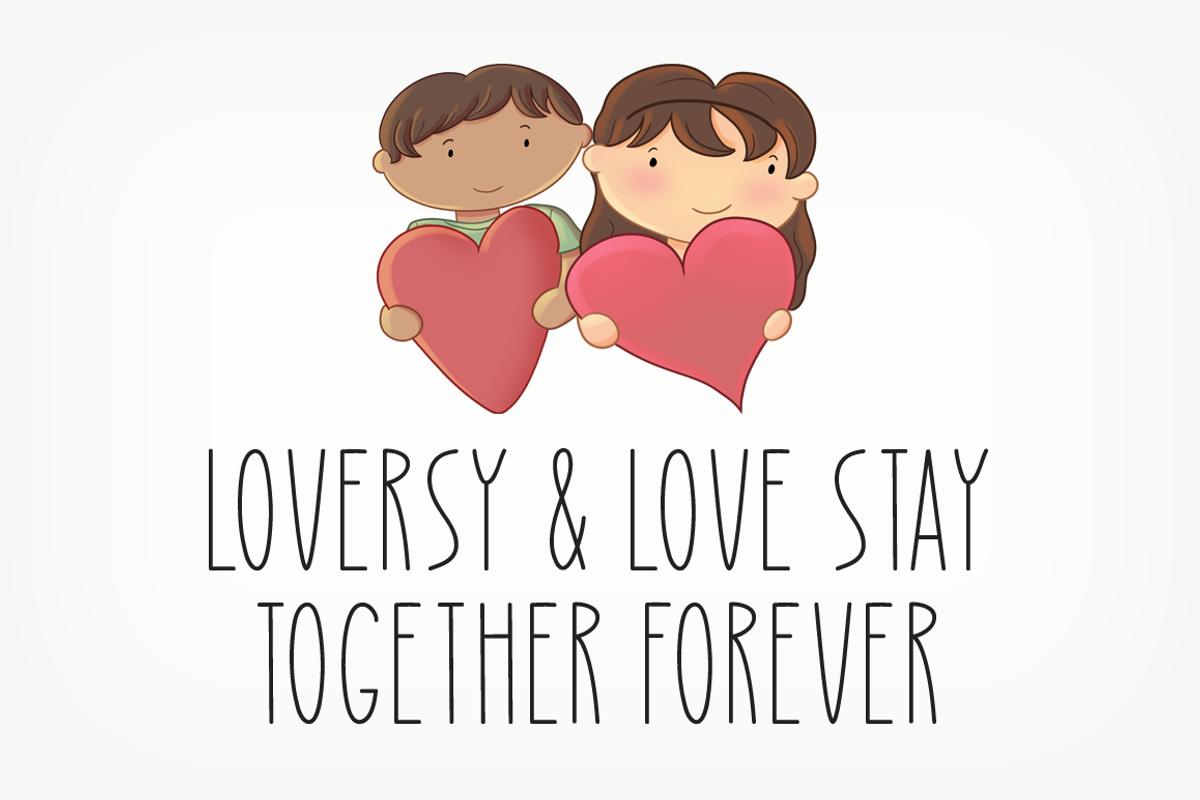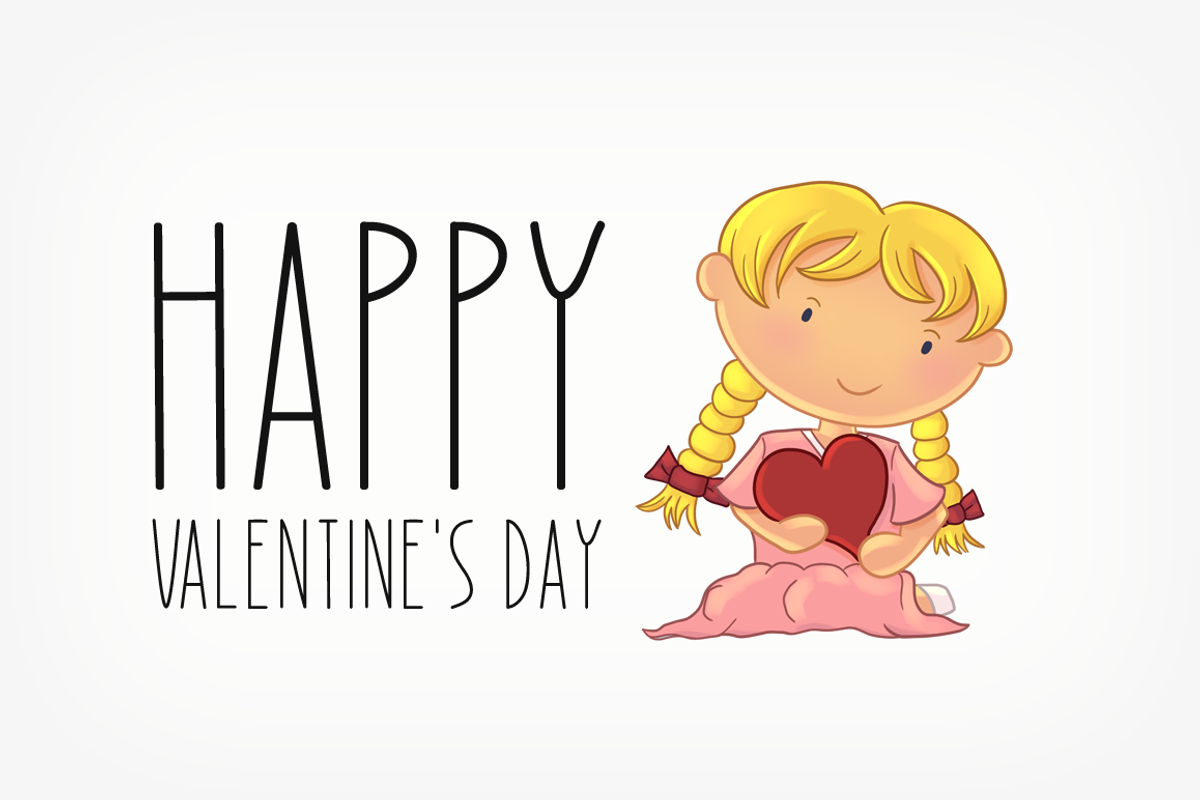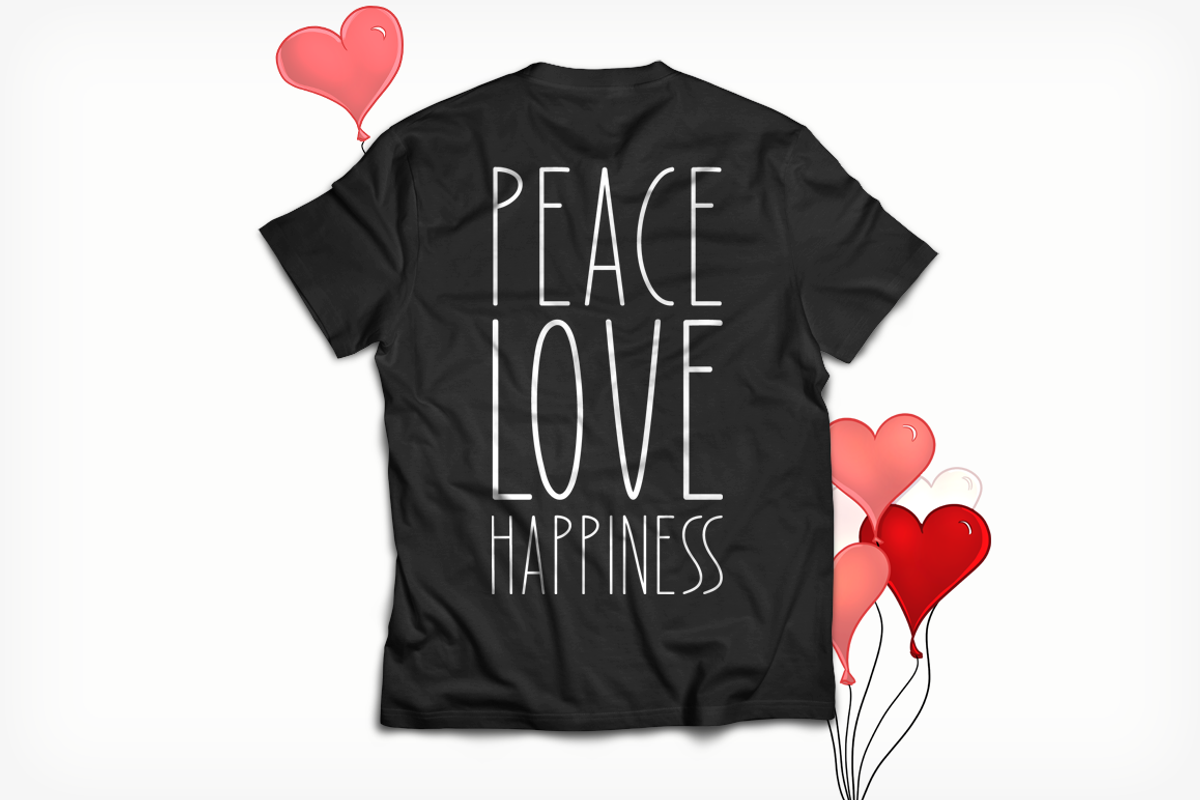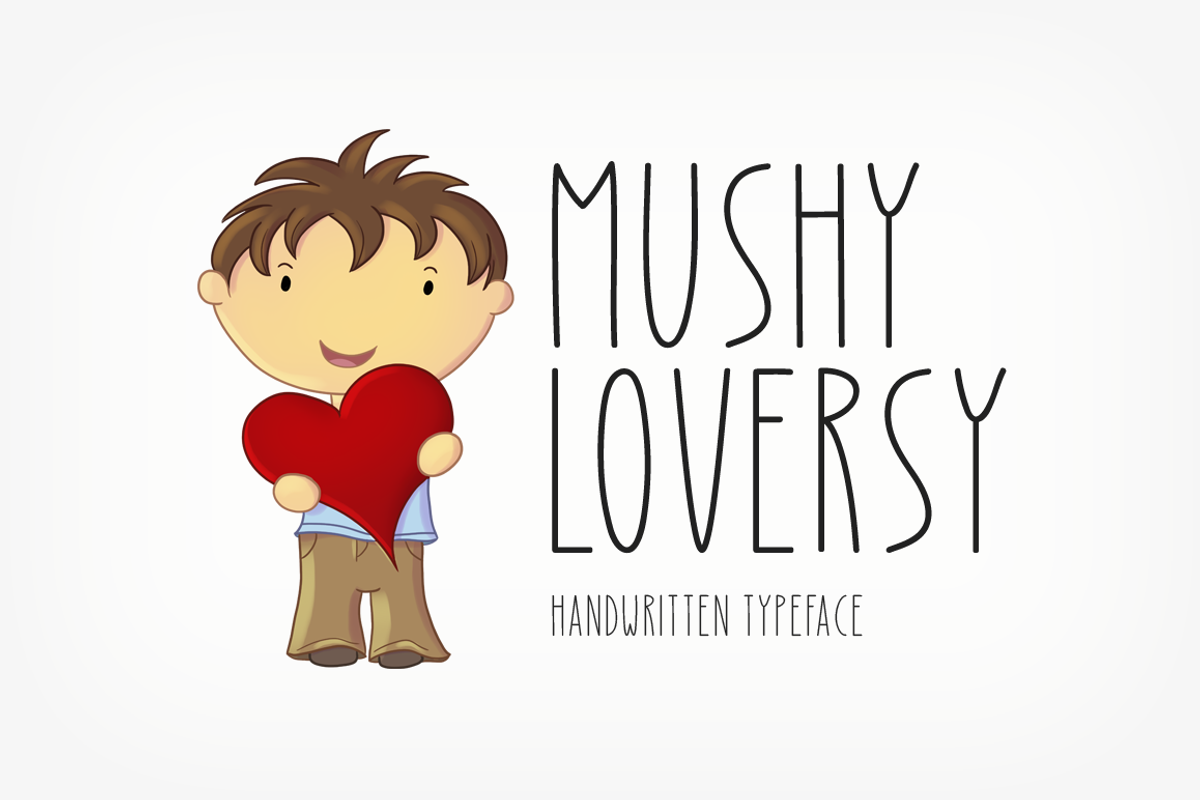
Mushy Loversy Typeface
Introducing Mushy Loversy!
Mushy Loversy is a sweet and thin handwritten font. It can easily be matched to an incredibly large set of projects, so add it to your creative ideas and notice how it makes them stand out!